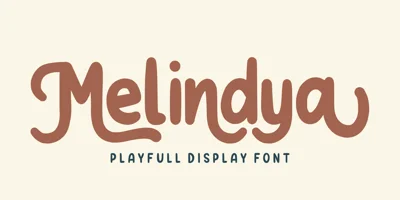
Melindya Font
Melindya Font is perfect for romantic wedding invitations, elegant beauty salon branding, sophisticated floral arrangements, delicate perfume packaging, luxury lingerie labels, feminine lifestyle blogs, graceful dance studio materials, refined bridal boutique signage, enchanting greeting cards, and sophisticated women's magazine layouts. This enchanting typeface brings gentle femininity and romantic elegance to any design project celebrating grace, beauty, and tender sophistication.
Melindya Font is exciting because it embodies the essence of gentle romance and feminine grace through its flowing letterforms that suggest sweetness, tenderness, and delicate beauty. The font's romantic character and graceful appeal evoke the poetry of love and the elegance of femininity, making it perfect for brands that want to communicate softness, romance, and refined feminine appeal to audiences seeking beauty and emotional connection.
Melindya Font family includes multiple weights and styles: Regular, Bold, Light, Medium, Italic, Condensed, Extended, Script, Romantic, and Graceful variants. Each style preserves the distinctive feminine character while providing comprehensive options for creating elegant romantic branding and tender communications that celebrate both emotional beauty and contemporary feminine sophistication across various romantic applications.
Whether you're designing for bridal services, beauty brands, or romantic lifestyle products, Melindya Font delivers the gentle elegance that resonates with romantic audiences and feminine luxury markets. This graceful typeface combines tender sophistication with modern functionality, making it essential for projects requiring both romantic appeal and professional presentation. The font's enchanting presence ensures memorable impact in romantic and feminine beauty contexts.